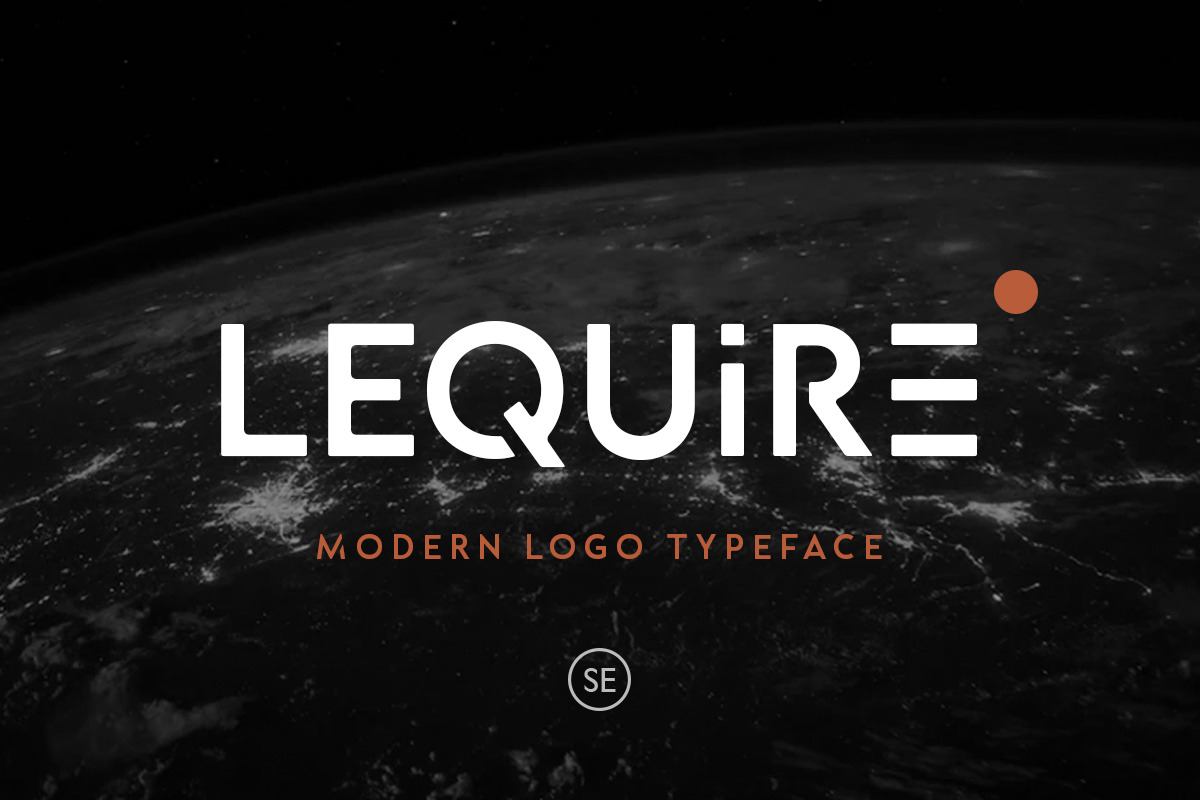
Lequire - Modern Logo Typeface Free Download
Lequire - Modern Logo Typeface Free Download is a sleek and contemporary font designed specifically for creating eye-catching logos and brand identities. With its bold lines and sharp design, Lequire stands out in any project, making it perfect for modern businesses, tech startups, and creative ventures. This typeface adds a professional touch to your logo designs, ensuring that your brand captures attention and leaves a lasting impression.